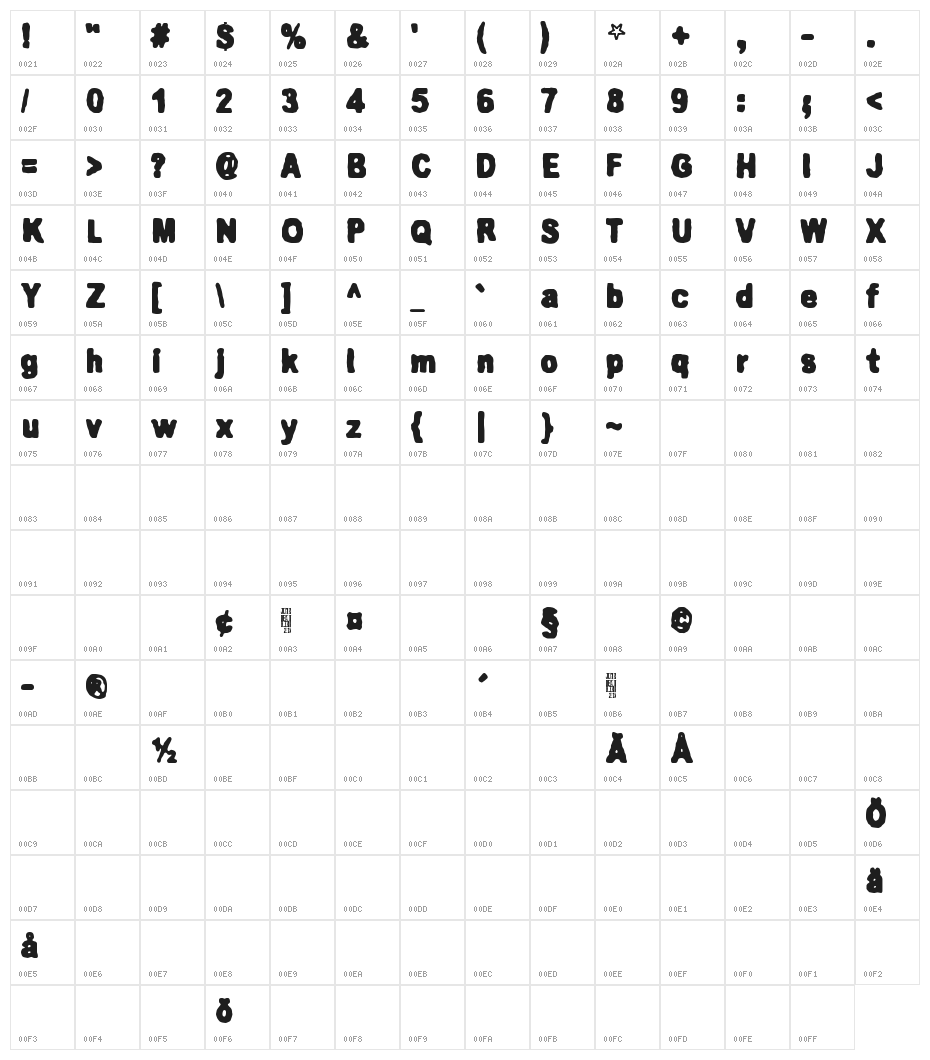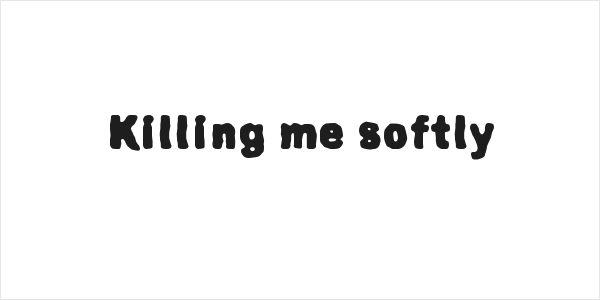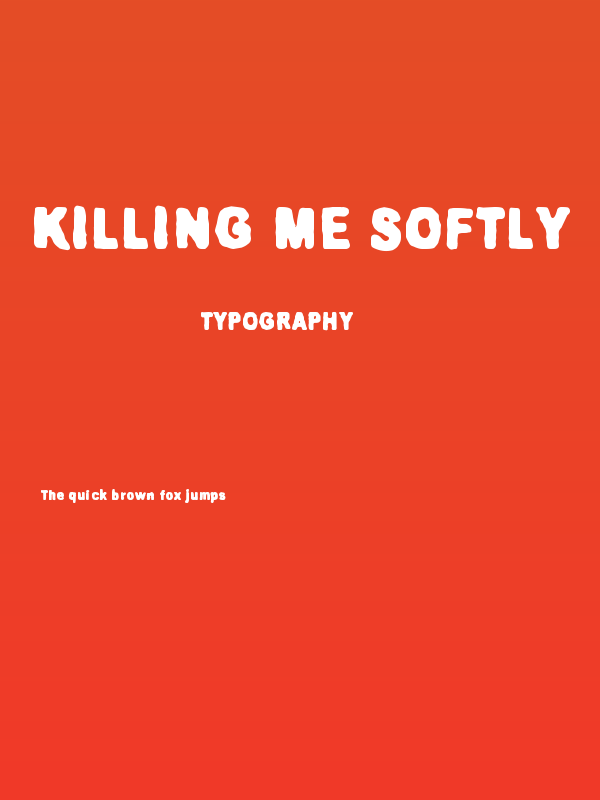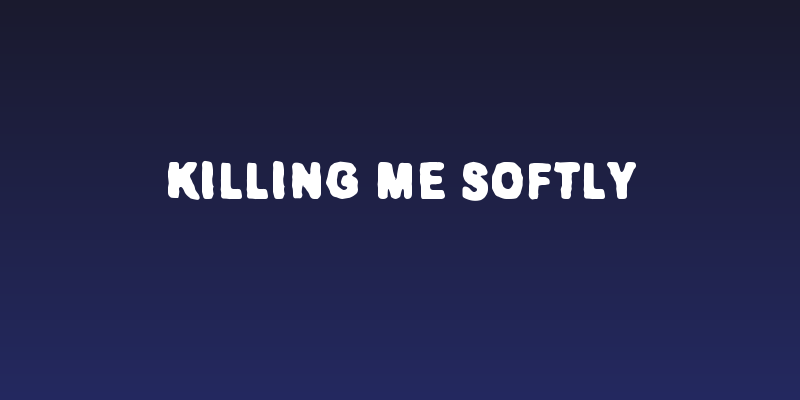
Killing me softly Font
Killing me softly Description
This font features a bold and playful style with a hand-drawn appearance. The characters are rounded and slightly irregular, giving them a whimsical and organic feel. The uppercase and lowercase letters maintain a consistent thickness, contributing to a cohesive look. The numbers and special characters follow the same design principles, ensuring uniformity across the font. This font's unique style makes it stand out, perfect for projects that require a touch of creativity and fun.
| Use Case | Headlines, Posters, Creative Projects |
| Proposed Projects | Ideal for children's books, playful branding, posters, and creative invitations. |